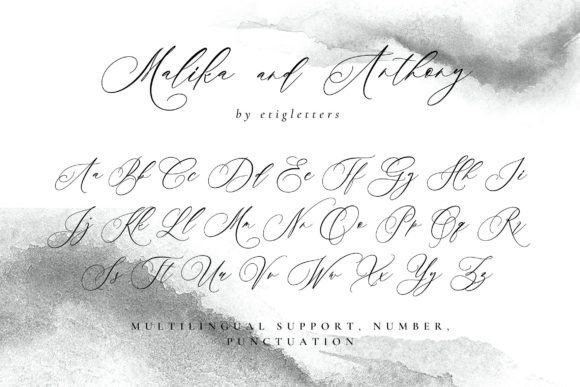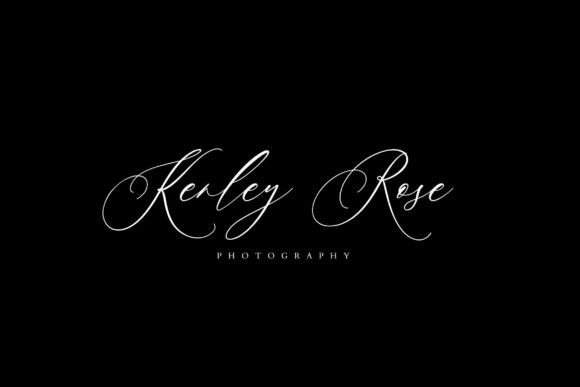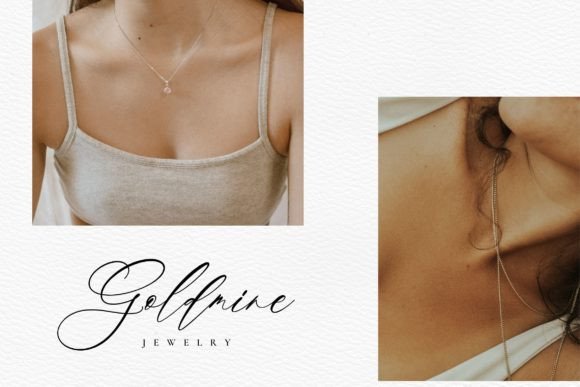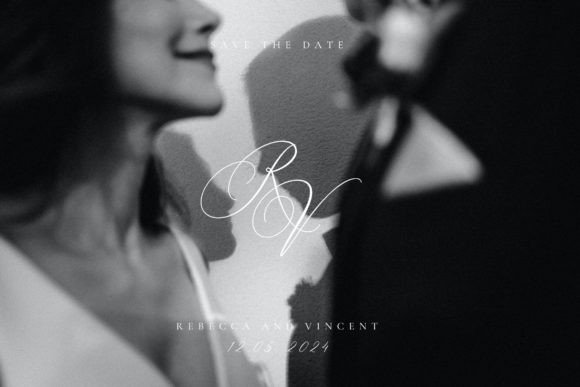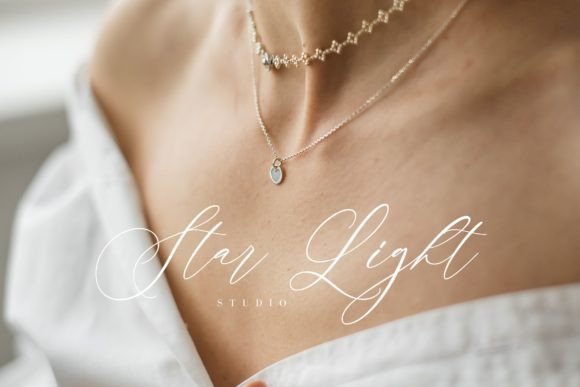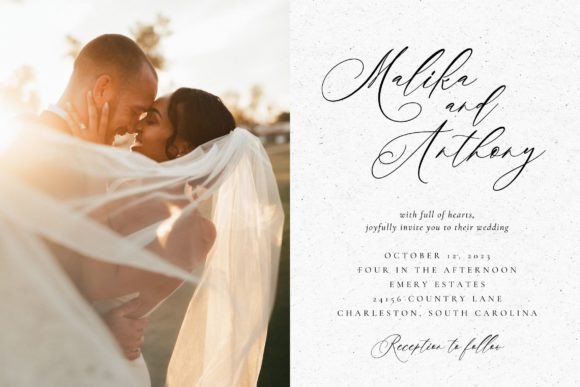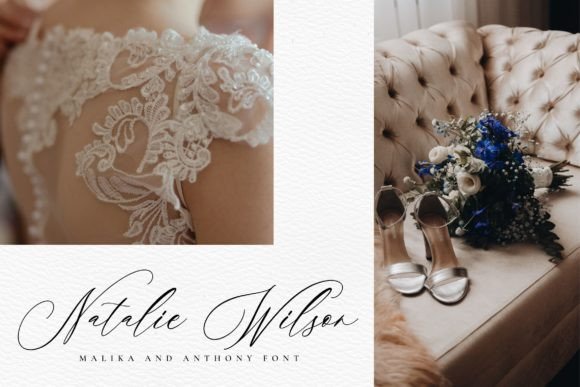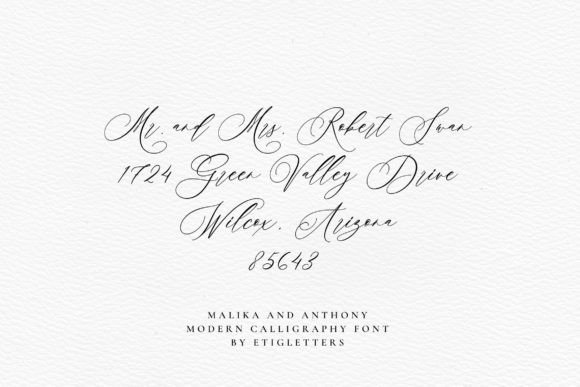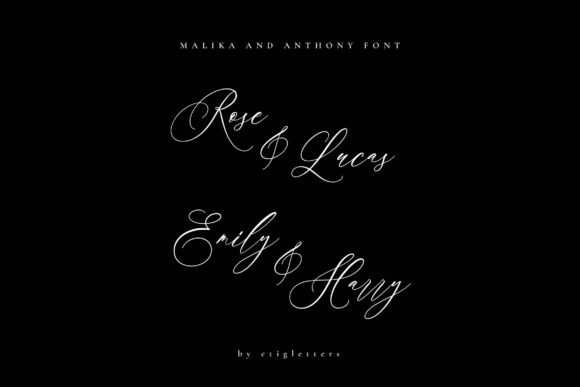
Malika and Anthony Font
Malika and Anthony Font download is a lovely and timeless handwritten typeface that adds a unique charm to any design. This font is perfect for creating eye-catching logos, branding projects, and inspiring quotes. Every letter carries a special and beautiful touch, ensuring your design truly comes alive.
Perfect for Various Designs
Whether you work on business branding, social media graphics, or personalized invitations, Malika and Anthony Font download fits seamlessly. Its elegant curves and handwritten style offer versatility across a wide range of projects. Thanks to its distinct design, it elevates the overall look, making your work stand out.
Balanced and Readable Style
Despite its artistic flair, thefont remains highly readable. Its balanced strokes make it suitable for both headlines and body text. This flexibility ensures that Malika and AnthonyFont download works beautifully on various platforms and printed materials.
Downloading Malika and AnthonyFont gives you access to a classic yet fresh handwritten style. This font combines timeless elegance with modern usability, making it ideal for personal or commercial projects. Add thisfont to your collection and watch your designs transform.